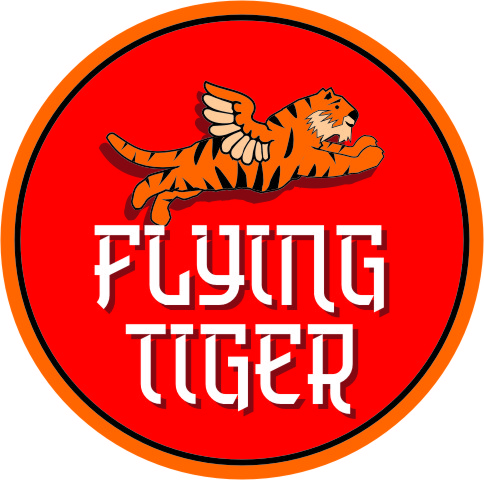
Oozing orientalist vibes. Nice.
Nice font.
And nice sample, as usual.
Nice Font! Congrats on the TP, too!
Niceee
Amazing Chinese Font
You meant "faux Chinese?"